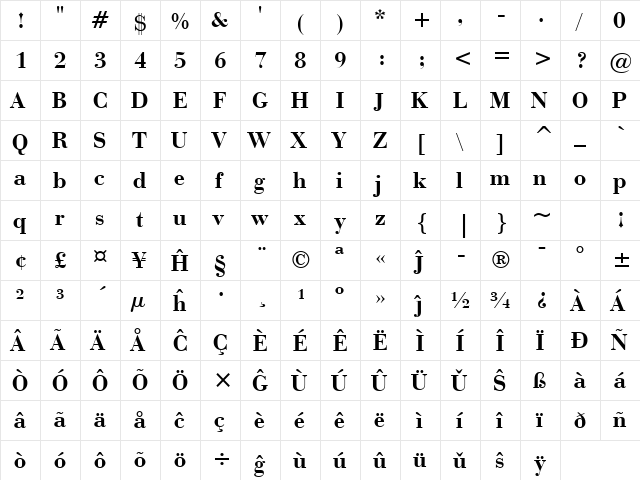
BauerBodni BT Eo Bold Font Preview
BauerBodni BT Eo Bold
BauerBodni BT Eo Bold Font Details
Design Context for BauerBodni BT Eo Typeface
BauerBodni BT Eo takes a measured approach to typography — its balanced proportions and neutral character make it a reliable workhorse for both digital and print work. Its bold stroke weight gives it real presence on the page.